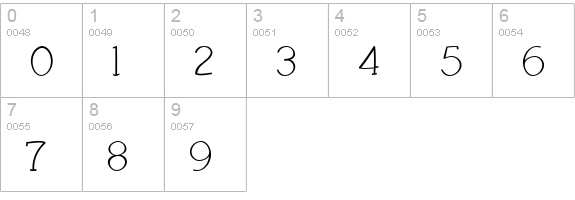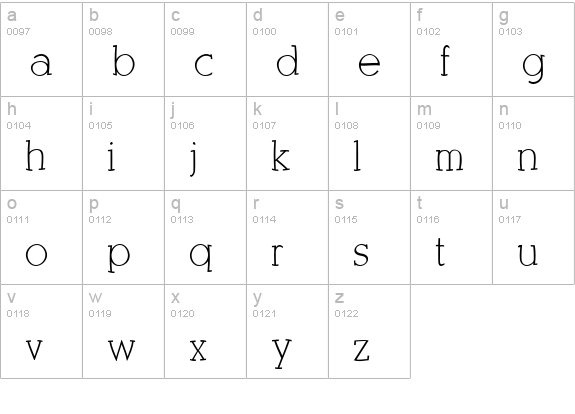
KleinSlabSerif Font Details
KleinSlabSerif is a stunning font that combines elegance with a touch of modernity. Its meticulously crafted serifs gracefully guide the eye along each letterform, enhancing readability and lending a timeless sophistication to any design project. With its balanced proportions and exquisite detailing, KleinSlabSerif exudes a sense of professionalism and authority, making it a perfect choice for branding, editorial layouts, and corporate communications. Its versatility allows it to seamlessly adapt to both digital and print mediums, ensuring a consistent and impactful visual presence. But what truly sets KleinSlabSerif apart is its accessibility. This remarkable font is not only visually captivating but also freely available to download at FontsMarket.com. This means that designers, creators, and enthusiasts alike can now effortlessly access the beauty and power of KleinSlabSerif without any cost restrictions. Whether you are a seasoned professional or a budding designer, KleinSlabSerif offers endless possibilities to elevate your creative projects. Its timeless aesthetic and free availability make it an invaluable addition to any font library. So why wait? Embrace the elegance of KleinSlabSerif and unlock a world of design opportunities today, all with the convenience of a simple download from FontsMarket.com.